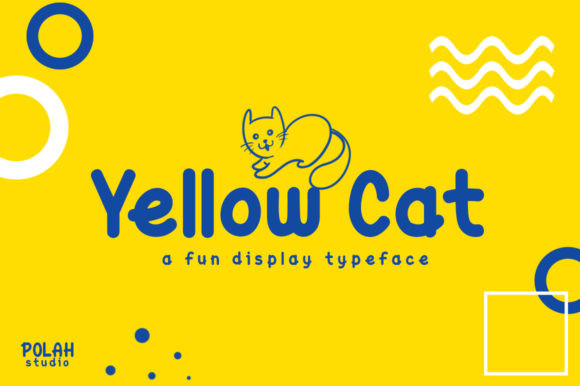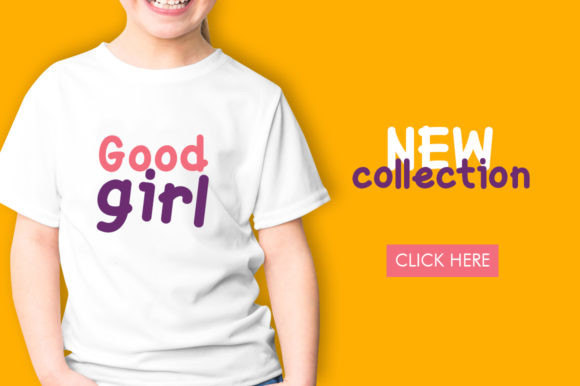
Yellow Cat Font
The Yellow Cat is a fun and cheerful display typeface. It’s perfect for name cards, posters, logos, magazines, covers, and even large-scale artworks.